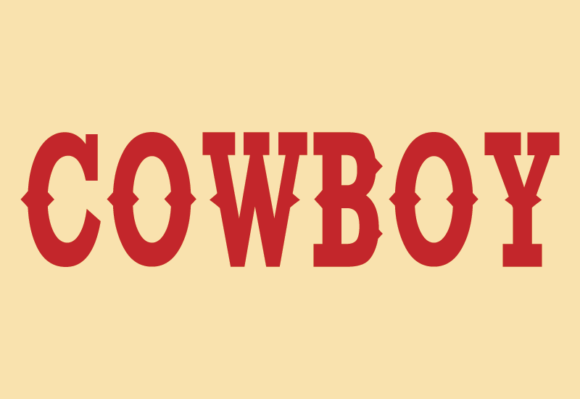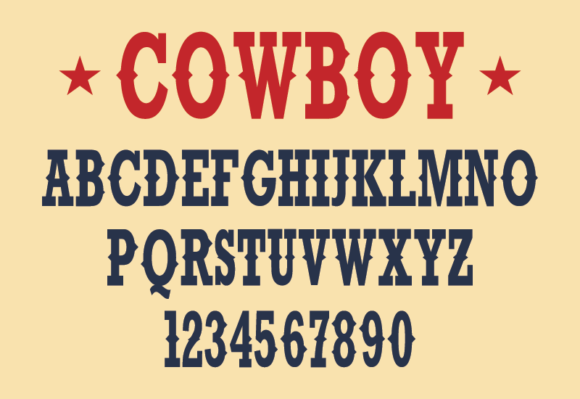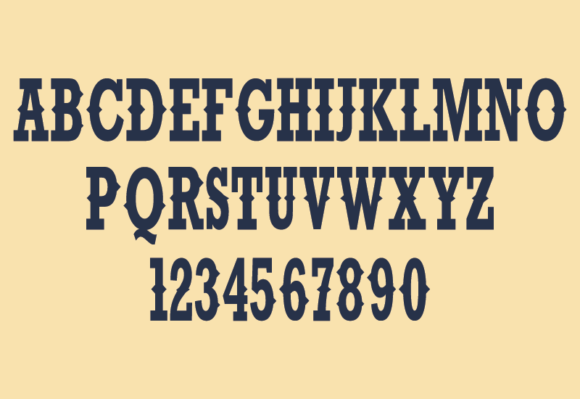
Cowboy Font
Cowboy is a simple Western-style serif font designed for a clean retro look. With its vintage balanced proportions, this font is perfect for creating a minimalist aesthetic in logos, web design, and branding.